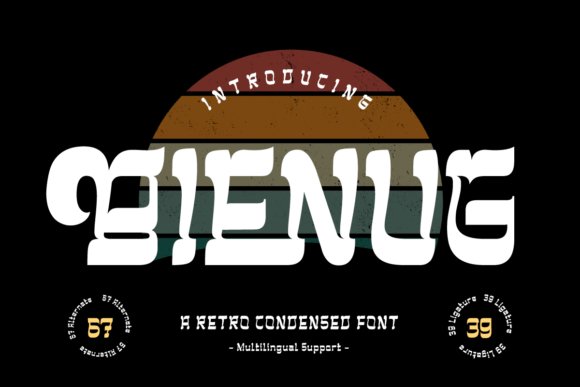
In a world demanding distinction, BIENUG, the classic serif font, emerges as an unrivaled masterpiece, tailored to elevate your creative endeavors. Immerse yourself in an era of classic modernism, where elegance and sophistication reign supreme. With BIENUG as your creative ally, transform ordinary designs into timeless works of art.
Unleash your imagination with BIENUG's boundless versatility. Effortlessly adapt this font to a myriad of projects, ranging from polished resumes that exude professionalism to captivating social media posts that radiate charm. Its meticulously crafted ligatures and alternate features orchestrate a symphony of creativity, allowing you to weave unique character combinations that set your designs apart.
Experience the transformative power of BIENUG's diverse styles, each evoking a distinct mood and nuance. Explore the delicate intricacies of the Regular style, marvel at the bold authority of the Bold style, or embrace the playful charm of the Italic style. With BIENUG, versatility knows no bounds, empowering you to infuse your designs with a captivating visual narrative.
Indulge in the exquisite beauty of BIENUG's PUA-encoded characters. Access a treasure trove of glyphs and ligatures with effortless ease, unlocking endless possibilities for creative expression. Embellish your designs with intricate details, adding a layer of sophistication that captivates and mesmerizes.
BIENUG is more than just a font; it's an invitation to explore the realm of timeless elegance. Whether you seek to craft a professional CV that commands attention or breathe life into captivating social media posts, BIENUG stands as your trusted companion. Let its classic modernism elevate your designs to new heights, forging an unforgettable visual experience that speaks volumes.
Welcome to the world of BIENUG, where creativity finds its haven and elegance knows no bounds. Embrace this classic serif font and embark on a design journey that will leave an indelible mark on your audience. Discover the power of BIENUG today and witness the transformation of your designs into masterpieces of timeless beauty.